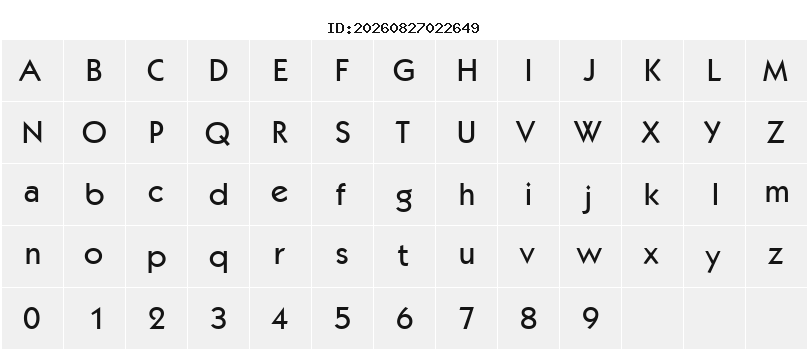
About 801-CAI978.ttf
801-CAI978.ttf is a modern, elegant sans-serif font designed for ultimate readability and visual harmony. Perfect for branding, headlines, web design, and print materials.